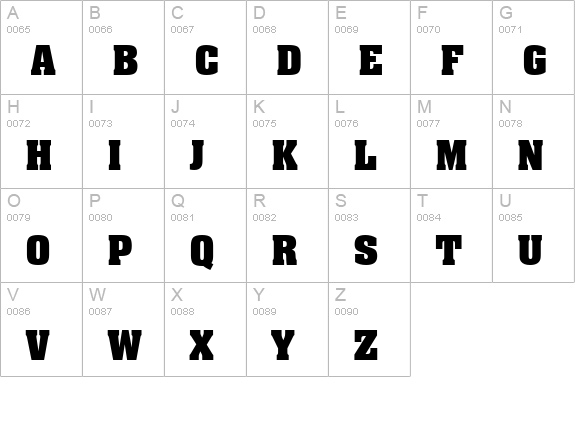
Aachen Bold BT is a strong, high-contrast variant in the Aachen typeface family \xE2\x80\x94 well suited to headlines, attention-grabbing titles, and strong calls-to-action.
Aachen Bold BT font is a striking and powerful typeface that exudes confidence and impact. With its bold and commanding presence, it is perfect for headlines, titles, and any design project that requires a strong visual impact. The Aachen Bold BT font features clean and well-defined letterforms that are easy to read, yet maintain a sense of strength and personality. Its bold weight gives it a commanding presence on any page or screen, making it a popular choice among designers and creatives looking to make a statement. What makes Aachen Bold BT font even more appealing is that it is freely available to download at FontsMarket.com. This means that designers and creatives can easily access and use this font in their projects without any cost. Whether you're designing a logo, creating a poster, or crafting a website, Aachen Bold BT font will add a touch of boldness and impact to your design. Its versatility and eye-catching appeal make it a valuable addition to any typographic toolkit. So why wait? Download Aachen Bold BT font for free at FontsMarket.com and start creating bold and impactful designs today.